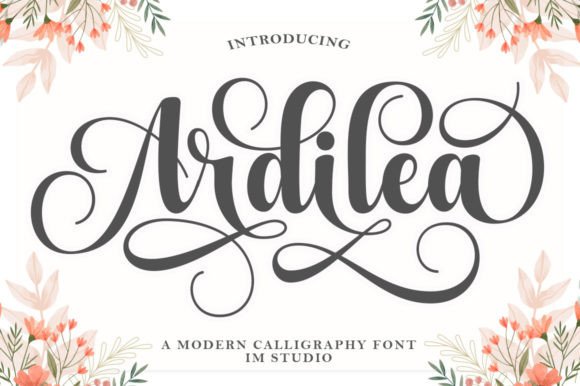
Introducing Ardilea Font: The Ultimate Modern Handwritten Font
Are you looking for a font that can add a touch of elegance and sophistication to your designs? Look no further than Ardilea Font, a modern and flowing handwritten font that is sure to capture your heart. With its varied bases, smooth lines, gorgeous glyphs, and stunning alternatives, Ardilea Font is the perfect choice for anyone looking to create spectacular designs.
What Makes Ardilea Font So Special?
Ardilea Font is a unique and versatile font that offers a range of features that set it apart from other fonts. Here are just a few of the things that make Ardilea Font so special:
- Varied Bases: Ardilea Font features varied bases that give it a natural, handwritten look. Each letter has a unique base, which adds to the font’s overall charm and character.
- Smooth Lines: The lines in Ardilea Font are smooth and flowing, giving the font a sense of elegance and sophistication.
- Gorgeous Glyphs: Ardilea Font features a range of gorgeous glyphs, including swashes, ligatures, and alternates. These glyphs add an extra layer of creativity and flexibility to the font.
- Stunning Alternatives: Ardilea Font also features stunning alternatives, which allow you to add even more variety and interest to your designs.
The Benefits of Using Ardilea Font
- Incredibly Versatile: Ardilea Font is incredibly versatile, making it perfect for a wide range of design projects, from wedding invitations and branding to packaging and advertising.
- Unique and Eye-Catching: Ardilea Font is a unique and eye-catching font that is sure to grab attention. Its elegant, handwritten style makes it perfect for designs that need to stand out from the crowd.
- Experiment with Glyphs: Don’t be afraid to experiment with the glyphs and swashes in Ardilea Font. These extra characters can add a lot of creativity and interest to your designs.
- Use it for Headings and Titles: Ardilea Font is perfect for headings and titles, where its elegant, handwritten style can really shine.
- What is Ardilea Font? Ardilea Font is a modern and flowing handwritten font that features varied bases, smooth lines, gorgeous glyphs, and stunning alternatives.
- What can I use Ardilea Font for? Ardilea Font is perfect for a wide range of design projects, including wedding invitations, branding, packaging, and advertising.